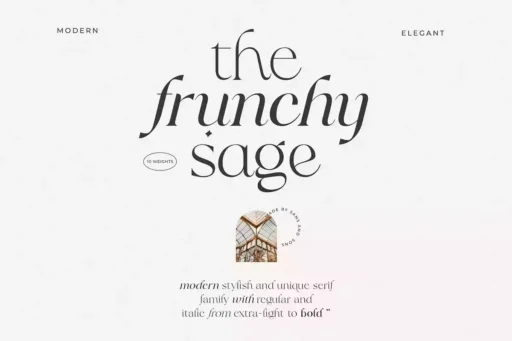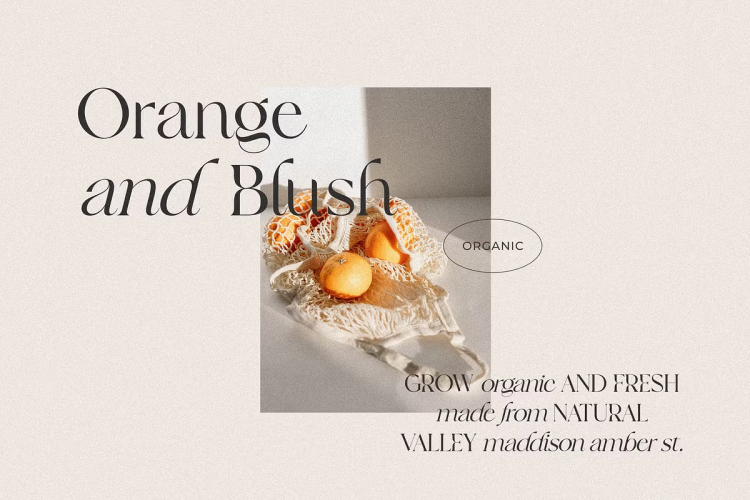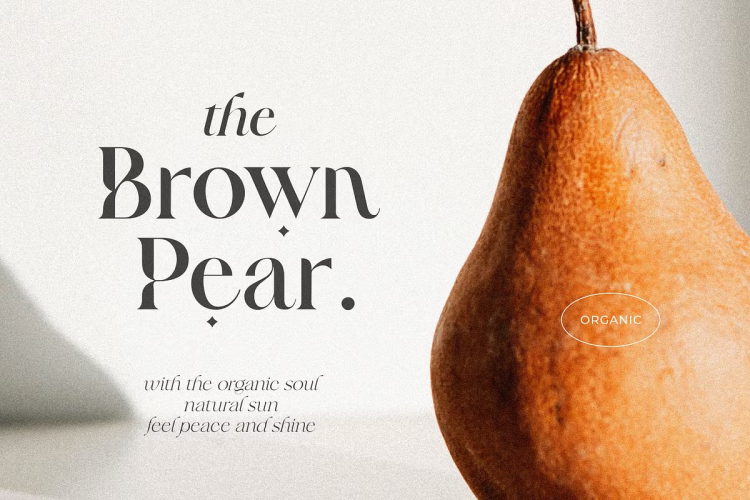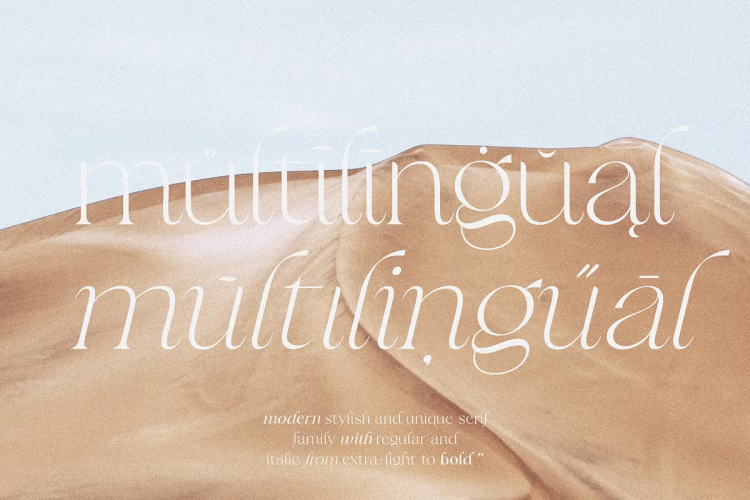
Frunchy Sage Font
Frunchy Sage is a modern stylish and unique serif font family by Sans & Sons. This is ideal for branding logos, invitations, mastheads, and many other uses. Frunchy Modern Serif Font is perfect for creating professional and stylish logos, stylish invitations for weddings and other events, striking headlines for magazines and websites, and more. The font is also suitable for packaging, social media, magazines, and advertisements due to its stylish and modern look.
To effectively use the Frunchy Modern Serif Font to its maximum potential, one has to know how to use the special keys in the software. The letters with tails are available in the font file and are ‘sticky’, which means that you need to select the desired feature to use them. This can be done in software like Adobe Photoshop, Adobe Illustrator or directly through your character map.
Frunchy Sage Font is a Serif Fonts font that brings a professional and versatile look to your projects. Frunchy Sage is a modern stylish and unique serif font family by Sans & Sons.